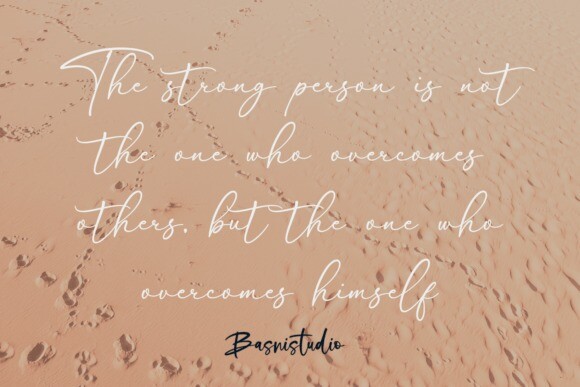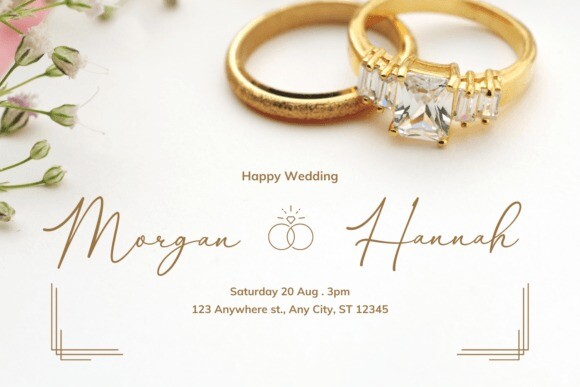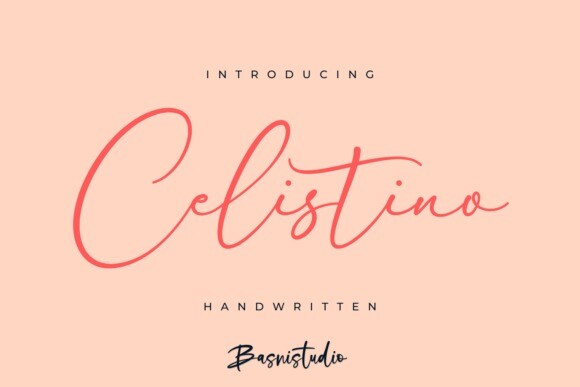
Celistino Font
Celistino Font is crafted with a natural touch and precision, making it perfect for branding, websites, and editorial designs. It includes all character letters, multilingual support, punctuation, and ligatures, all easily accessible in software that supports OpenType.